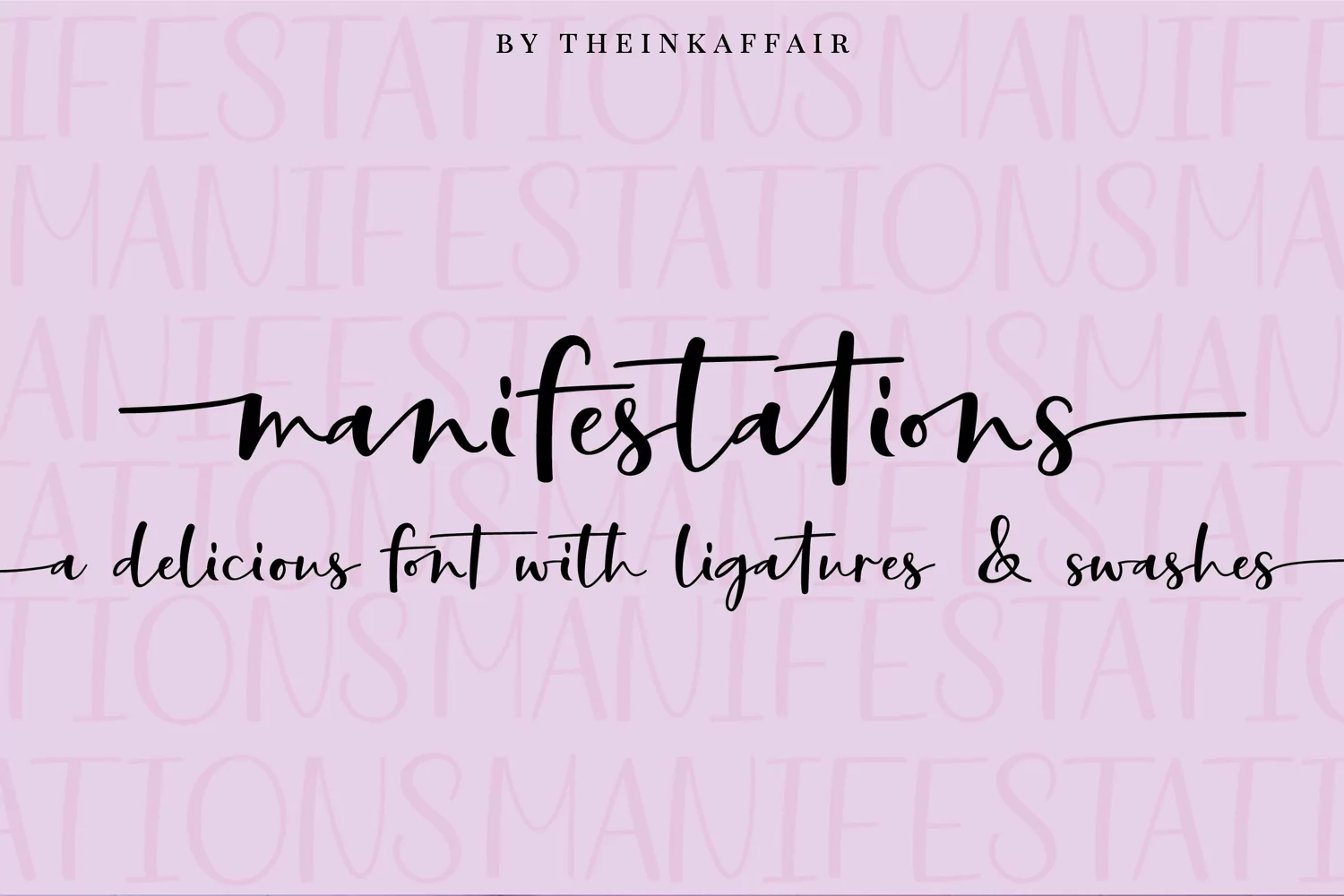
Welcome Manifestations, a fun and delicious modern calligraphy script font. Manifestations is perfect for all things design! From christmas greetings to wedding invitations, social media posts, blogs, logos, apparel design, typography, and so much more! Manifestation font comes with over 40 ligatures to add some authenticity to your designs and also includes beginning and ending swashes coded as alternates. This font also comes with swashed uppercase alternates. ( as seen in image 6) What's included: - Manifestation Script Font in both OTF and TTF formats. File includes uppercase, lowercase, numbers and punctuations as well as ligatures and alternates. In case of any queries, please contact here. Happy Creating!!